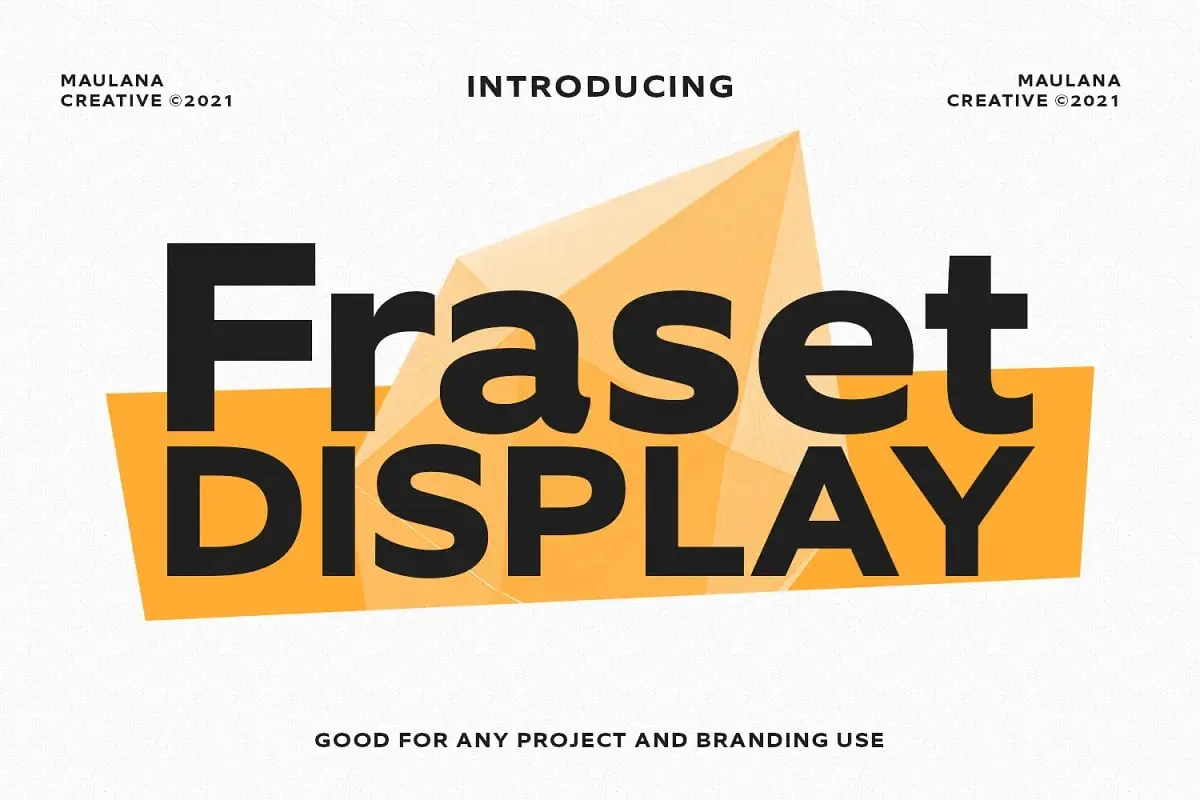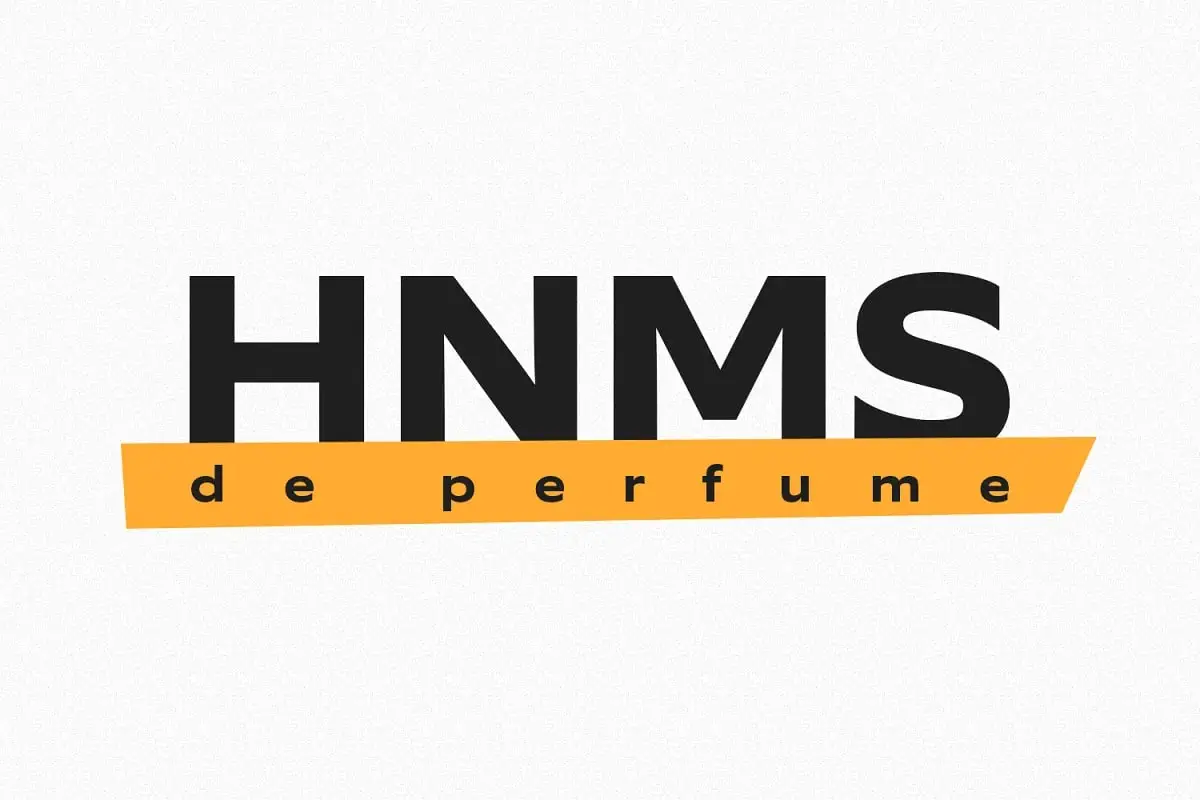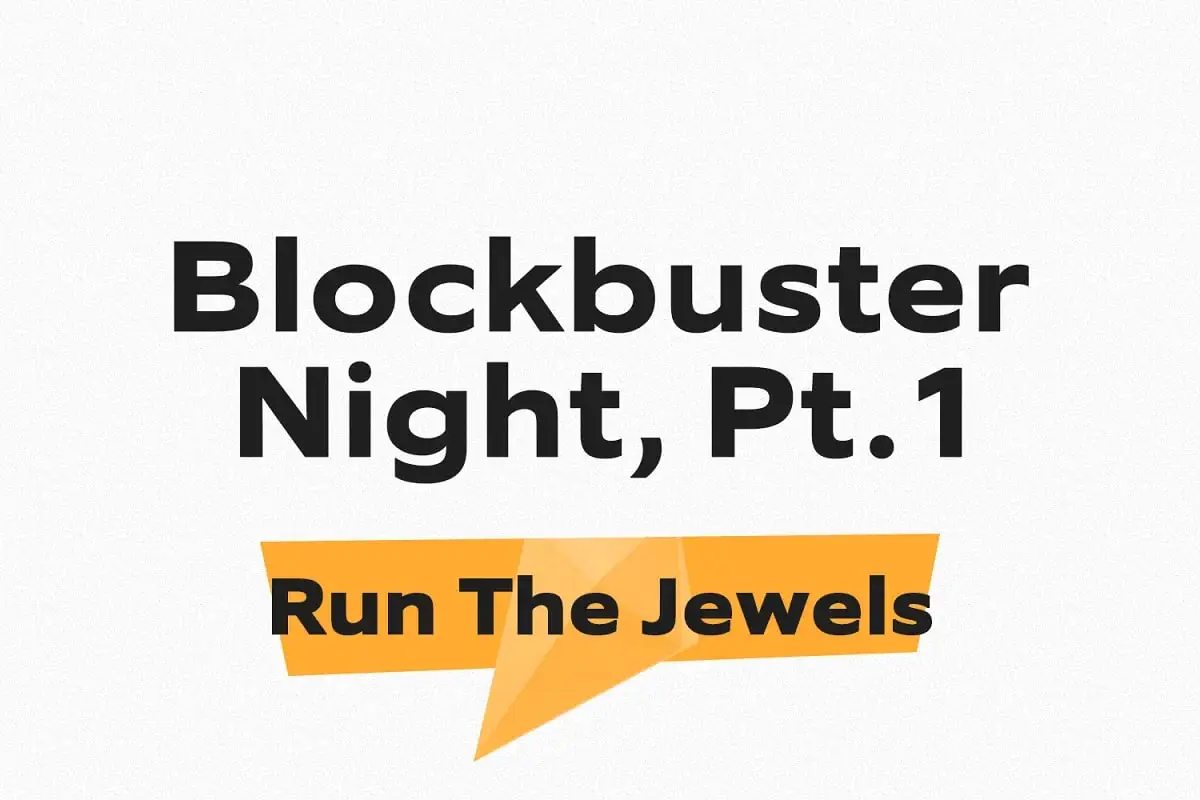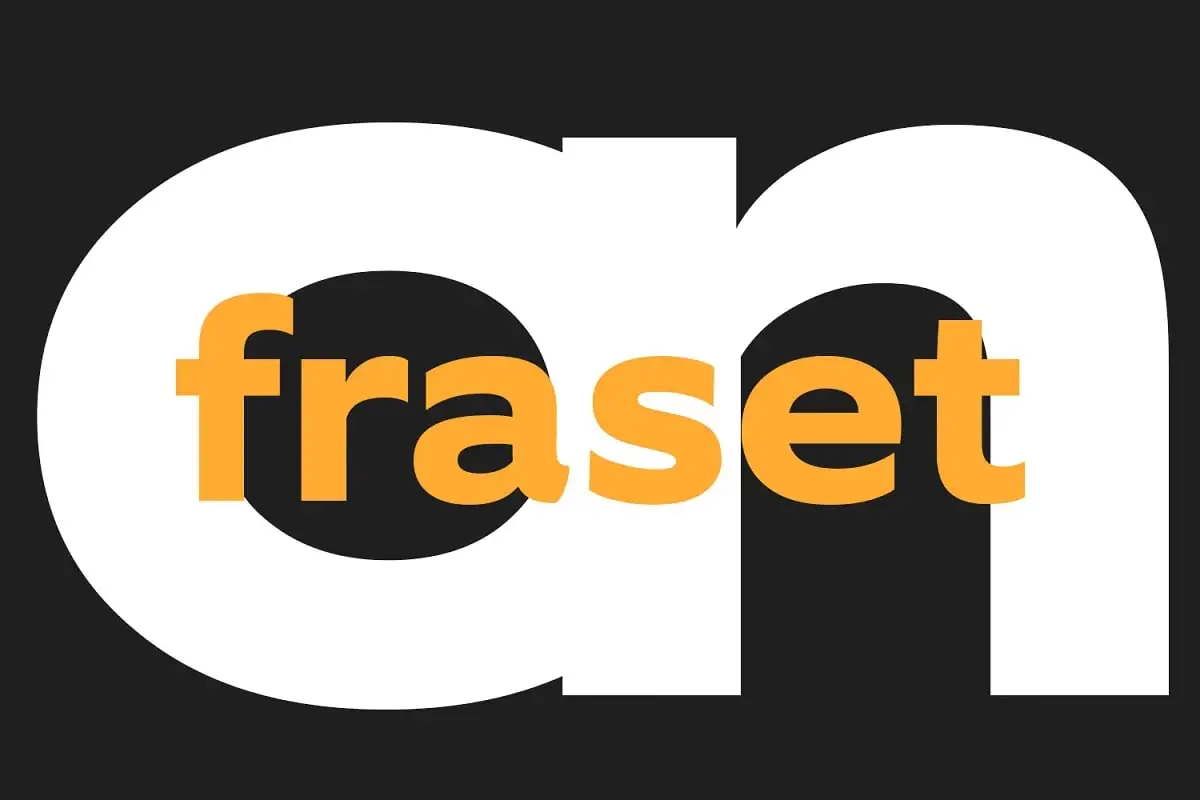
Fraset-Sans Serif Display Font
Introducing the Fraset-Sans Serif Display Font, a modern typeface designed to elevate your creative projects. This font features a clean and contemporary aesthetic, making it perfect for a variety of applications.
• Stylish sans serif design
• Weights: Regular, Bold, Light
This font is ideal for branding, logos, web design, print materials, and user interfaces. Its clear readability and modern style make it a great choice for both digital and print projects.